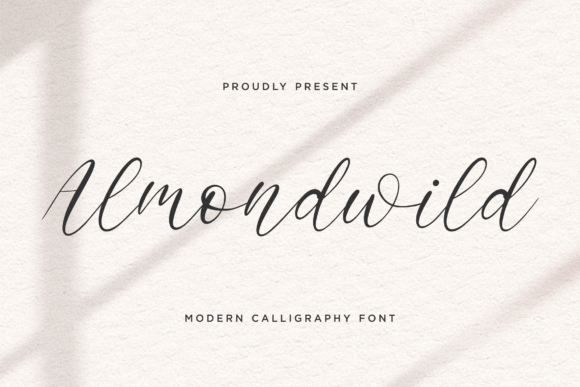
The Almondwild Font: A Designer’s Dream Come True
I’ll never forget the time I was working on a wedding invitation project for a client, and I just couldn’t seem to find the perfect font. I had tried countless script fonts, but none of them seemed to capture the elegance and whimsy that my client was looking for. That was until I stumbled upon the Almondwild font. ✨
As soon as I saw it, I knew I had found the one. The thin lettering and graceful script style were exactly what I needed to bring my client’s vision to life. And let me tell you, it’s been a game-changer for my design projects ever since.
- ✨ The elegant and refined script style that’s perfect for wedding invitations, stationery, and social media posts.
- ✅ The font is PUA encoded, making it easy to access all glyphs and swashes.
- 💫 The thin lettering adds a touch of sophistication and whimsy to any design.
- 🎉 The font is incredibly versatile and can be used for a variety of design projects.
While I absolutely love the Almondwild font, there are a few things to keep in mind. ⚠️
- 🤔 Some of the swashes and glyphs can be a bit finicky to access, but once you get the hang of it, it’s a breeze.
- ⚠️ The font may not be suitable for body text or long blocks of text, as it can be a bit too ornate.
The Story Behind Almondwild
Almondwild was designed by a team of typographers who wanted to create a font that was both elegant and whimsical. Inspired by the beauty of nature and the art of calligraphy, they set out to create a font that would be perfect for wedding invitations, stationery, and other special occasions.
| Font Name | Almondwild Font |
| Author | qwrtypefoundry |
Q: Is Almondwild suitable for body text or long blocks of text?
A: While Almondwild is a beautiful font, it’s not necessarily the best choice for body text or long blocks of text. It’s better suited for headlines, titles, and other display text.